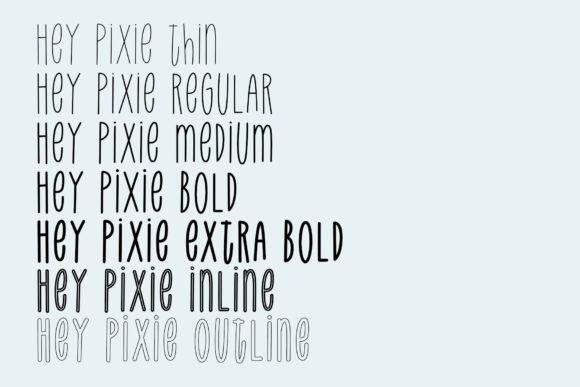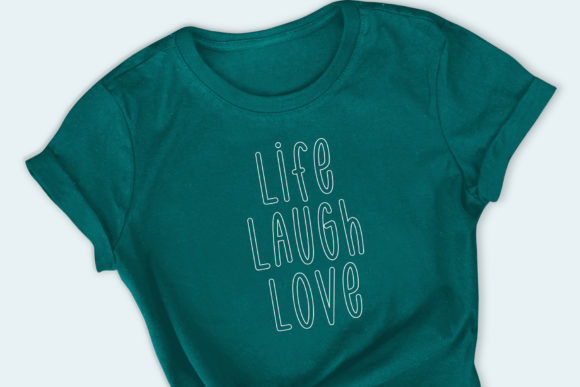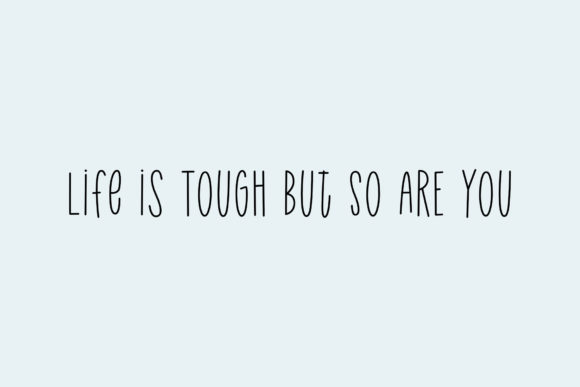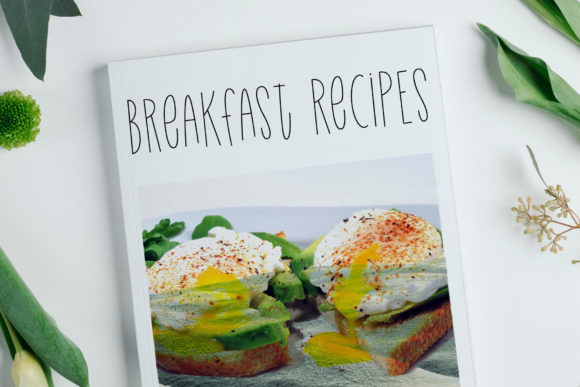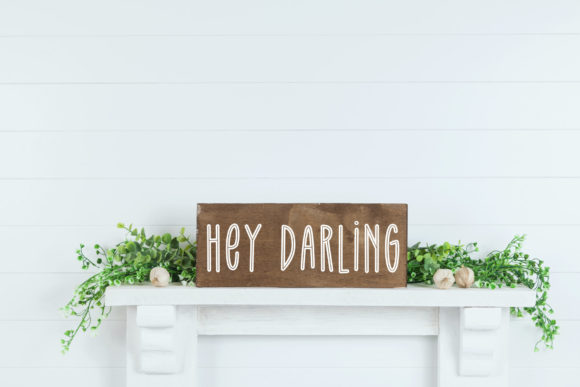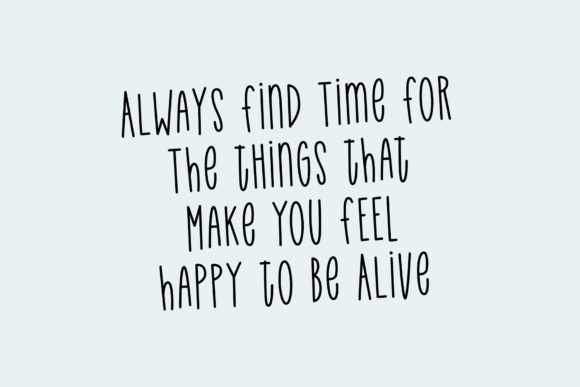
Introduction to Hey Pixie Font
Hey Pixie is a cute and thin lettered sans serif font.
Key Features of Hey Pixie Font
Why Choose Hey Pixie Font?
Hey Pixie Font offers exceptional quality and versatility, making it a valuable addition to your design toolkit. Whether you’re creating for personal projects or commercial use, Hey Pixie Font delivers professional results.